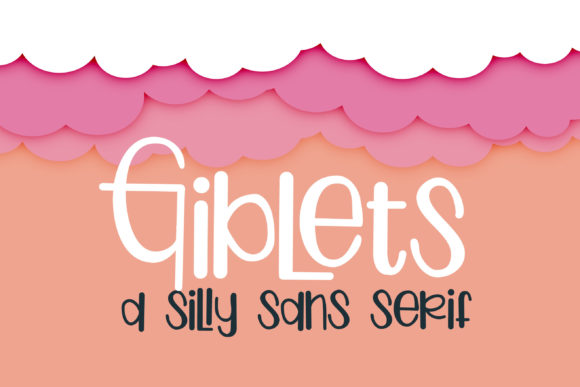
Feast your eyes on Giblets Font, a whimsical sans serif typeface that oozes charm and playfulness! Created by the talented Illustration Ink, this font family exudes a youthful energy that's sure to captivate your audience.
With its interlocking letters and playful curves, Giblets Font is perfect for adding a touch of whimsy and fun to your designs. Its legibility and clarity shine through, making it an excellent choice for print projects, especially when readability is paramount.
Imagine your words dancing across the page, captivating readers with their lively, playful spirit. Giblets Font's unique personality adds a touch of magic to any project, whether it's a children's book, a quirky poster, or a whimsical product label.
Unleash your creativity and let the words flow freely with Giblets Font. Embrace its playful nature and watch as your designs transform into enchanting works of art. Its youthful charm will resonate with audiences, leaving a lasting impression that's sure to be remembered.
Embrace the magic of Giblets Font and let your imagination run wild! Its endless possibilities will inspire you to create designs that spark joy, laughter, and a sense of childlike wonder. Dive into the world of Giblets Font and let your creativity flourish!